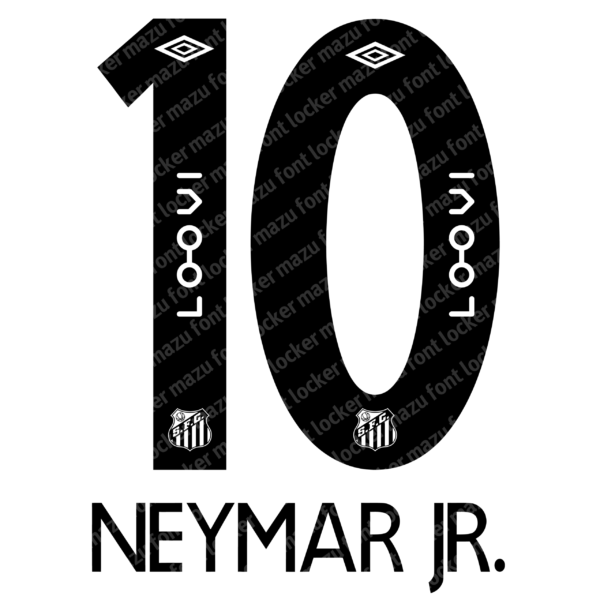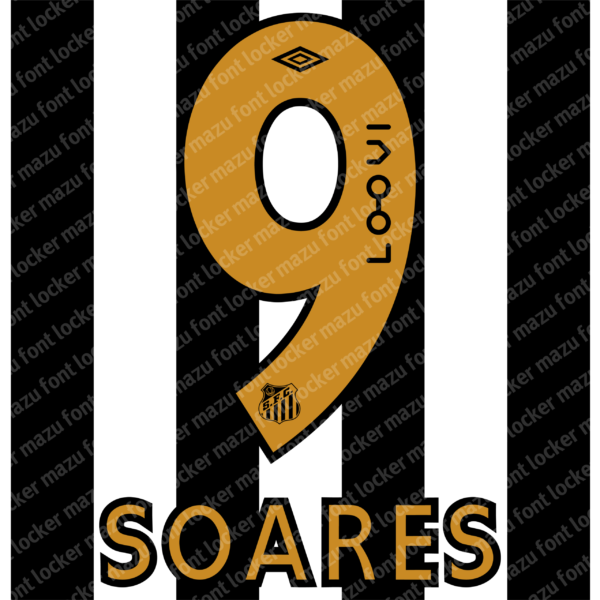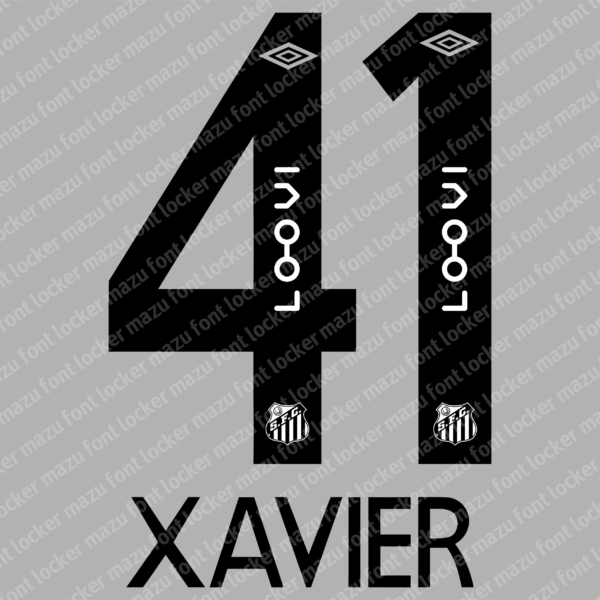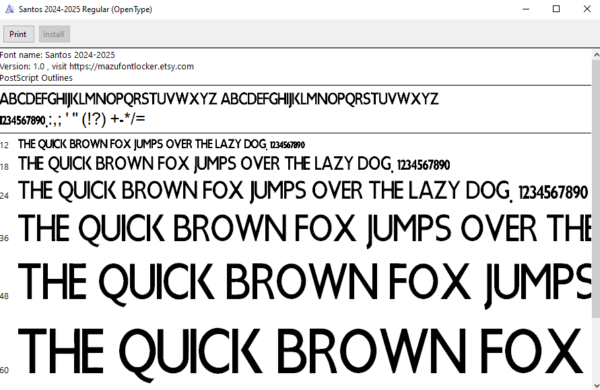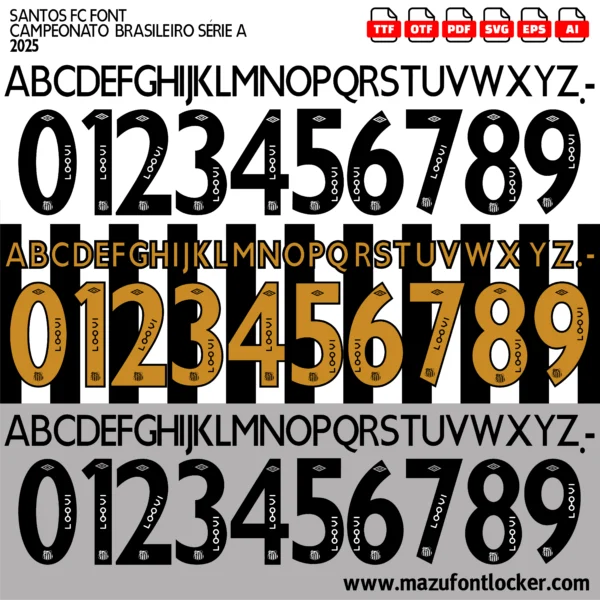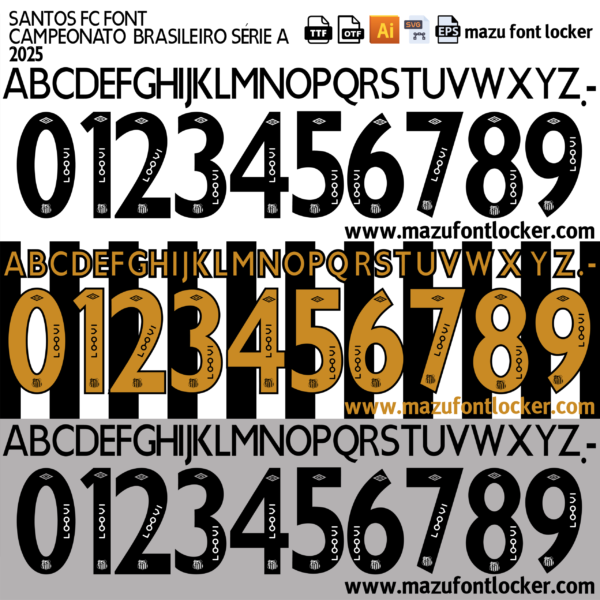
Santos FC 2025 Font Vector – Legendary Brazilian Football Jersey Style
This font captures the bold, fearless, vibrant, and ultra-premium lettering that perfectly reflects Santos FC’s legendary Brazilian heritage combined with the fierce, unstoppable, and magical spirit of the Peixe — delivering unmatched elegance, intense passion, elite craftsmanship, and pure Santos fire for premium jersey mockups, epic football designs, spectacular sports visuals, standout fan creations, and professional branding projects.
Santos FC 2025 Font Vector – Authentic Peixe Typeface
The Santos FC 2025 Font Vector is a premium typeface that accurately recreates the official match lettering worn by Santos FC during the 2025 season. This high-quality vector font kit captures the bold, elegant, and dynamic typography that represents the rich heritage, attacking flair, and legendary spirit of the Peixe.
Designed for professional designers and passionate Santos supporters, the Santos FC 2025 Font Vector delivers perfect authenticity for creating realistic jersey mockups, fan merchandise, matchday posters, social media graphics, and Brazilian football content. It pairs beautifully with the iconic white and black Santos kit, one of the most recognizable club identities in Brazil and South America.
Why Choose Santos FC 2025 Font Vector
This font stands out because of its sharp vector precision and strong club identity. Every letter and number is crafted to match the exact style used on the players’ shirts during Santos’ 2025 campaign. Whether you are creating realistic kit templates or exciting Peixe-themed content, the Santos FC 2025 Font Vector gives your designs that authentic Vila Belmiro atmosphere.
The letterforms in the Santos FC 2025 Font Vector are bold, modern, and highly readable. The strokes feature elegant geometric construction combined with athletic styling, creating a professional appearance that stands out on jerseys while preserving Santos’ legendary football heritage and Brazilian passion.
The numerals feature strong curves and clean edges, delivering a confident and premium appearance. This vector design ensures flawless scalability and excellent legibility across both print and digital applications.
• Full uppercase A–Z and numbers 0–9 in authentic Santos FC 2025 style
• Multilingual Latin character support including Portuguese accents and special characters
• Create highly realistic Santos FC 2025 jersey mockups with accurate lettering
• Produce custom Peixe merchandise with the official 2025 aesthetic
• Includes the exact crest glyph placement used beneath player numbers